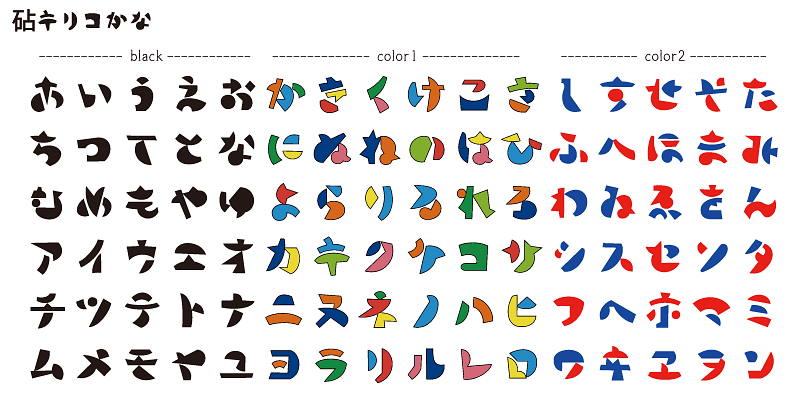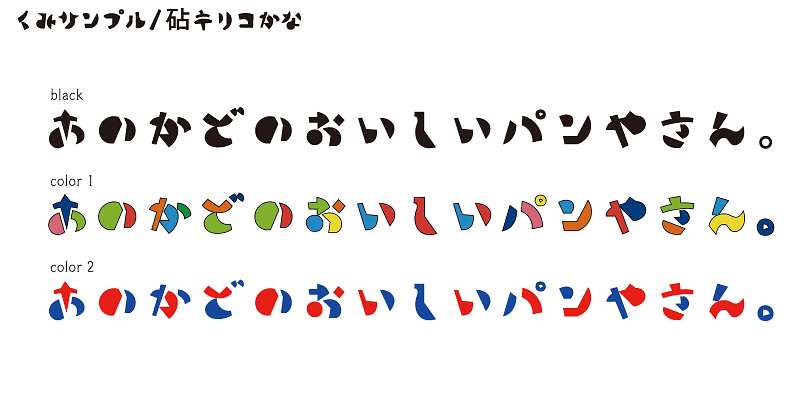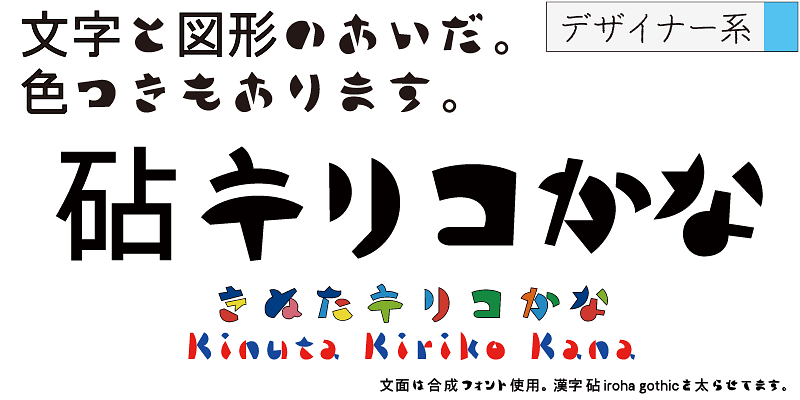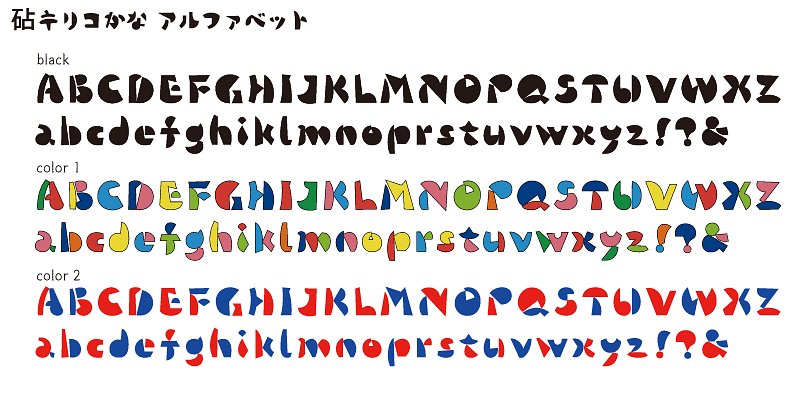
This typeface looks as if it were composed not of letter forms but graphical elements. You can enjoy single characters alone, composing longer text, and using color glyphs. There are three versions: Black, Color1 and Color2.
One characteristic of the Japanese language is that it has kana syllabic characters. Kana characters were invented in Japan to represent sounds in Japanese and translate texts imported from China into Japanese. Kana characters are needed to create Japanese words and expressions from kanji/Chinese ideographic characters. While there may be ambiguities, these words and expressions exhibit the warmth and gentleness of the lives of people living in the small and densely populated land of Japan.
Kinuta Font Factory’s believes that kana characters are the origin of written words in Japanese, and we think that improving kana characters will make Japanese text more attractive. On average, 60% of Japanese text consists of kana characters – changing the shape of these characters changes the visual appearance of the text. The possibilities for typographic expression using simple, dynamic and curvilinear kana characters are vast, and the richness of Japanese text depends on kana characters. This is the reason why Kinuta Font Factory offers many variations of kana typefaces.